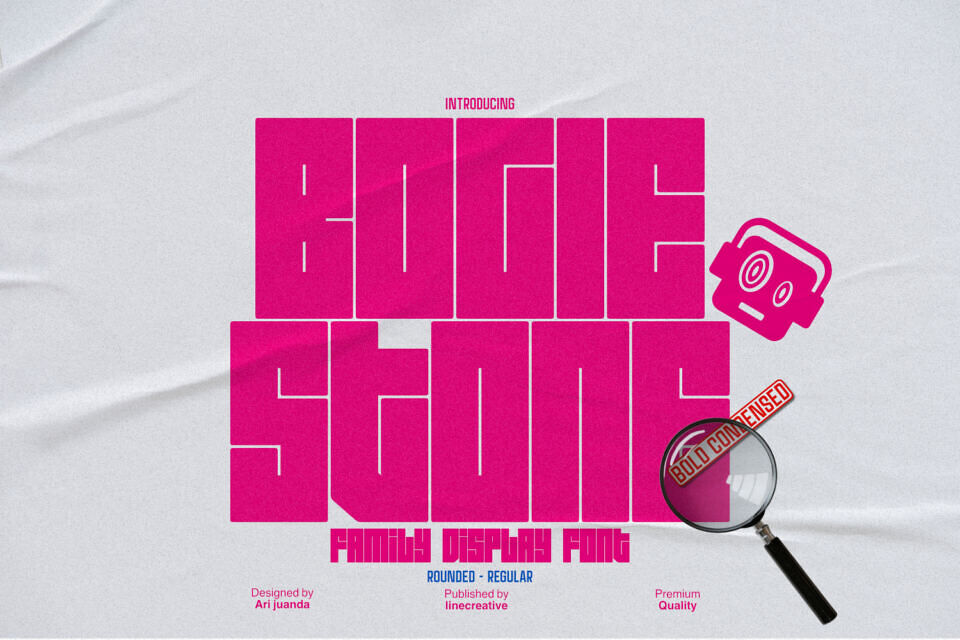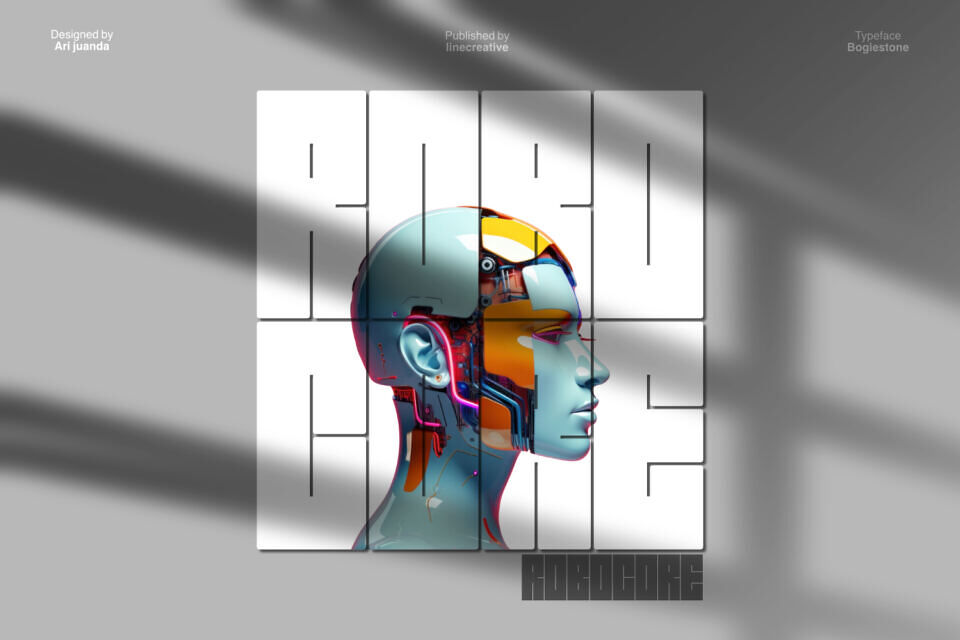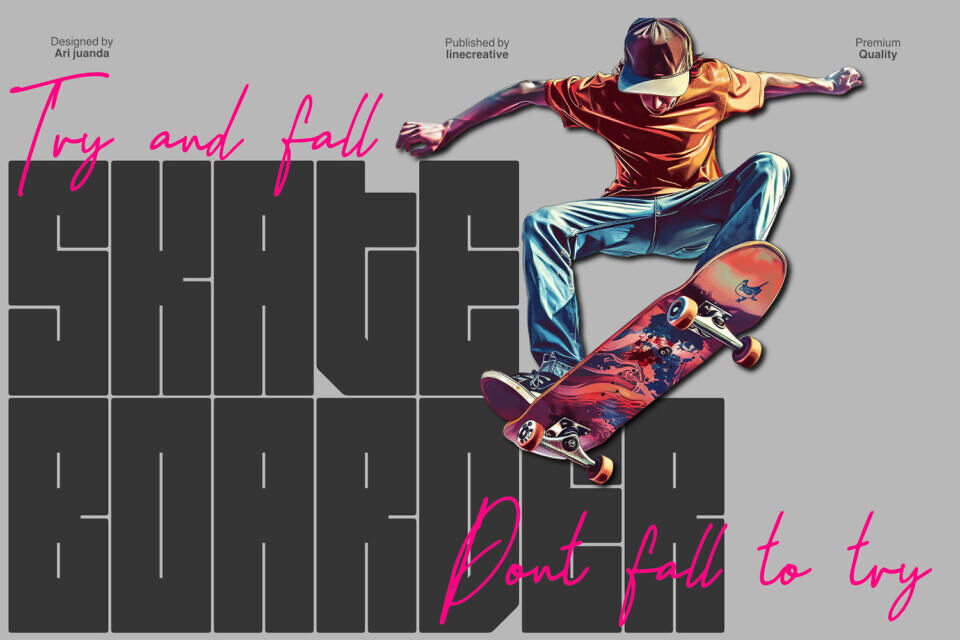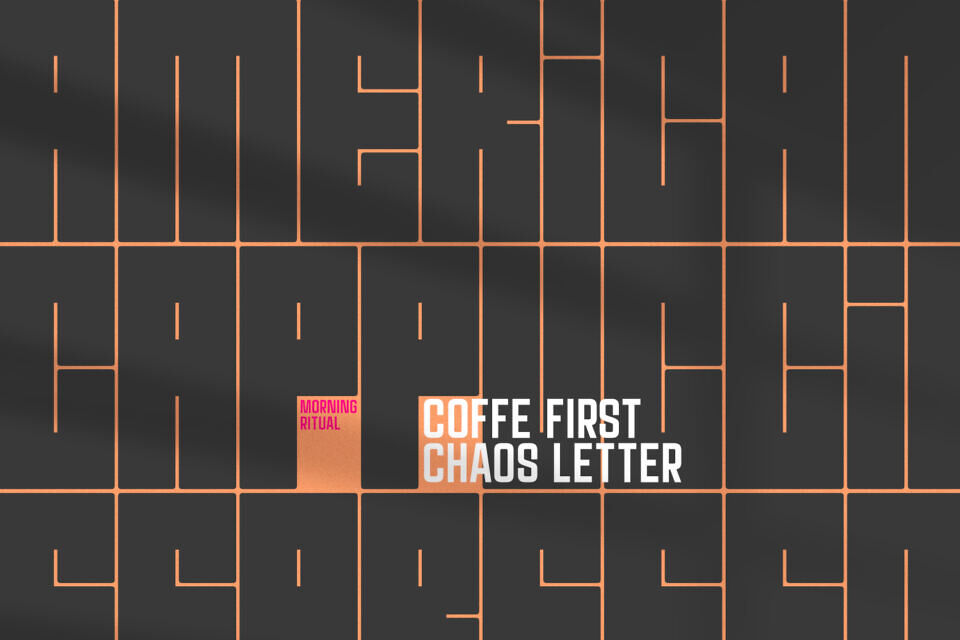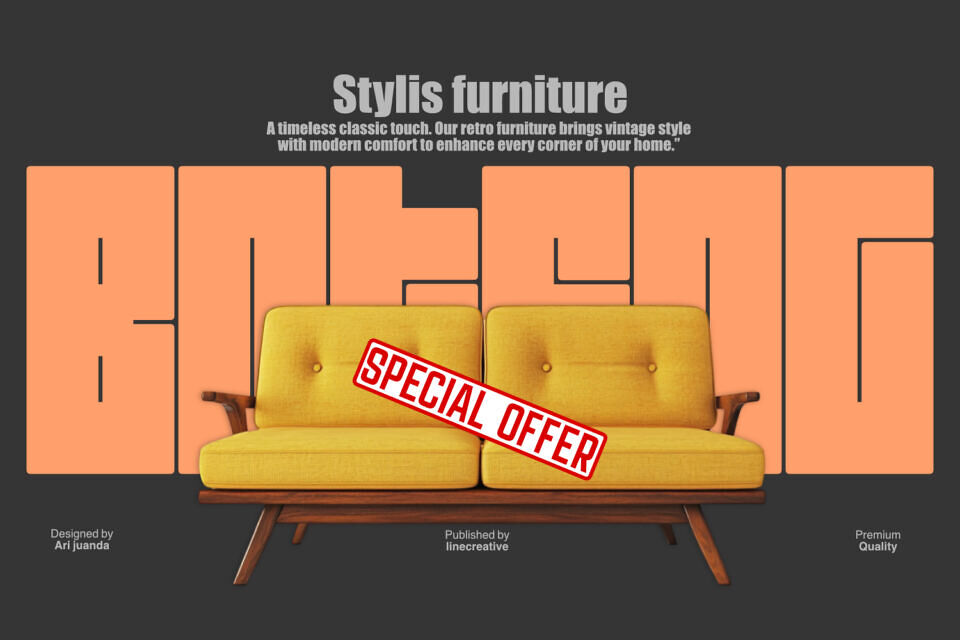
Bogiestone Font
Introducing Bogiestone, a bold, compact sans serif typeface designed to create a strong, futuristic, and attention-grabbing visual impact. With its tall, compact letterforms and geometric construction, Lostspace brings a powerful presence to any design.
Inspired by futuristic and modern visual styles, Bogiestone is perfect as a display font for projects requiring bold typography and strong character. Ideal for titles, posters, logos, branding, packaging, gaming themes, futuristic designs, sports graphics, and editorial titles.